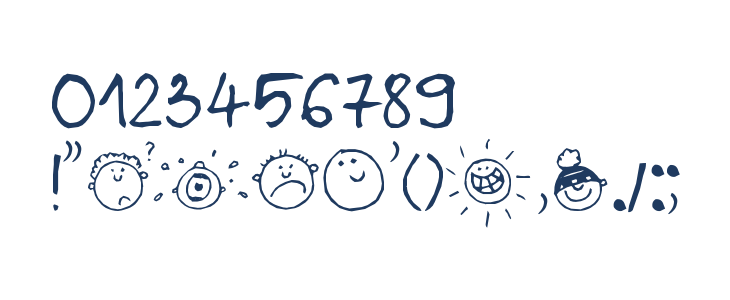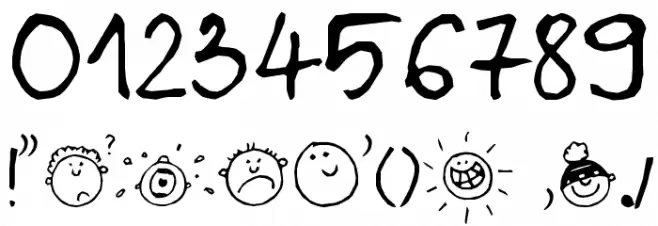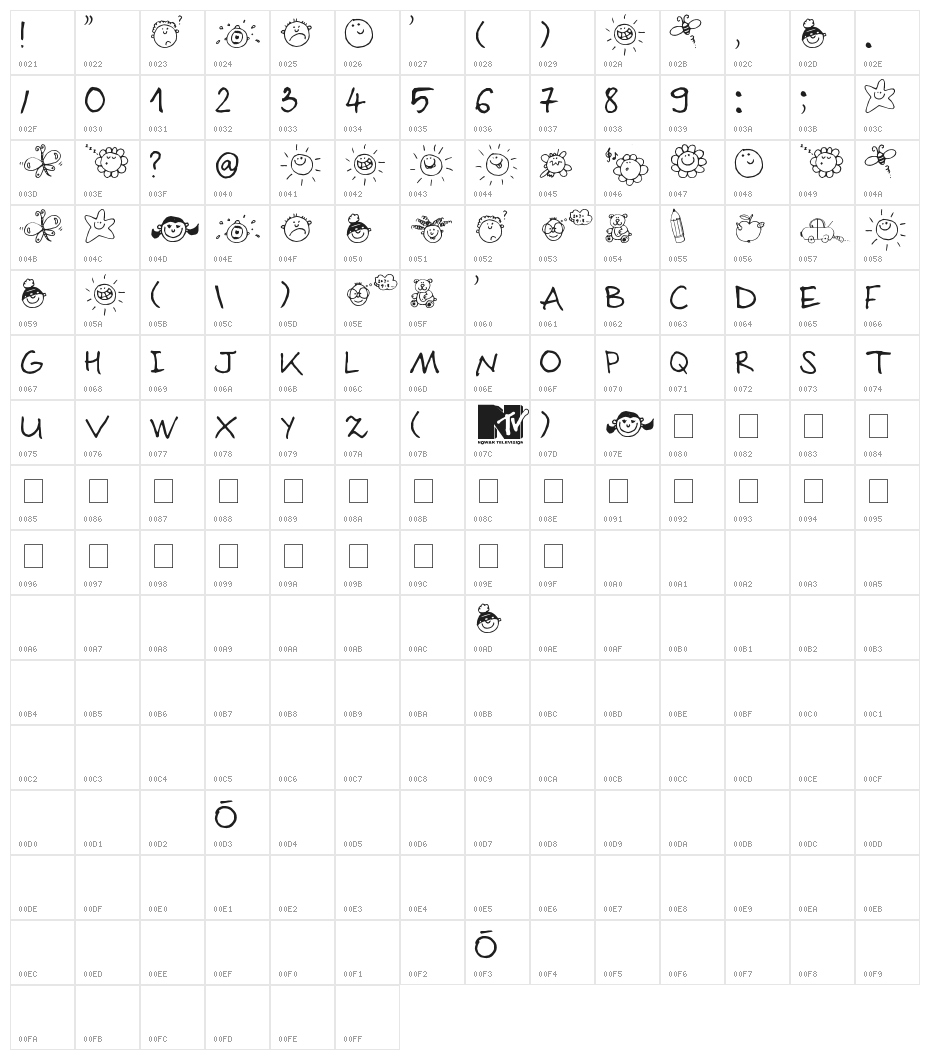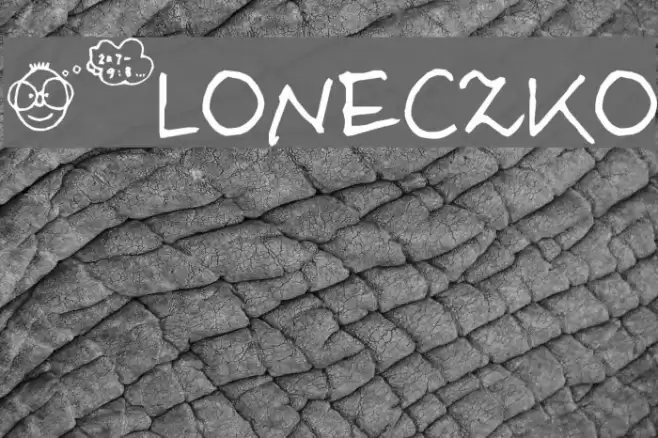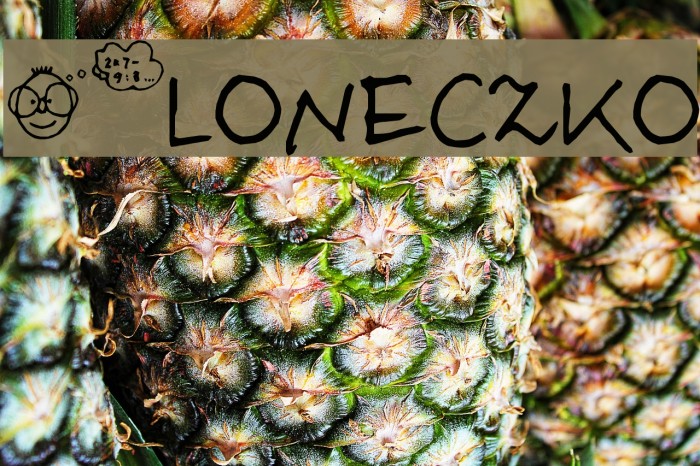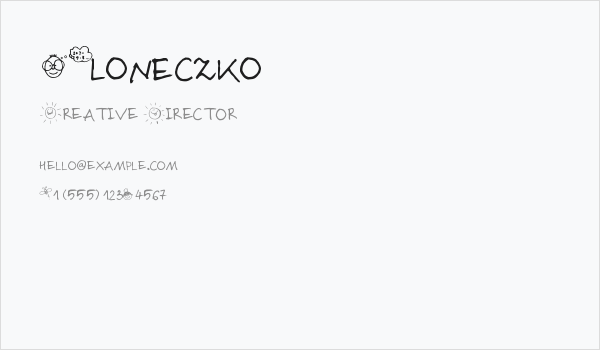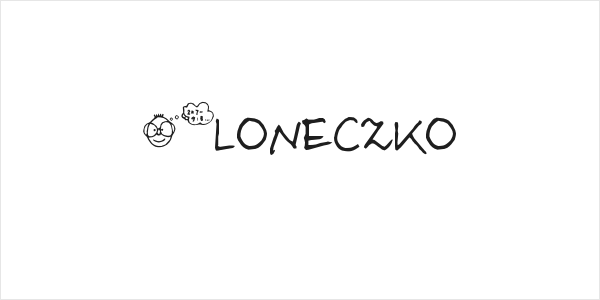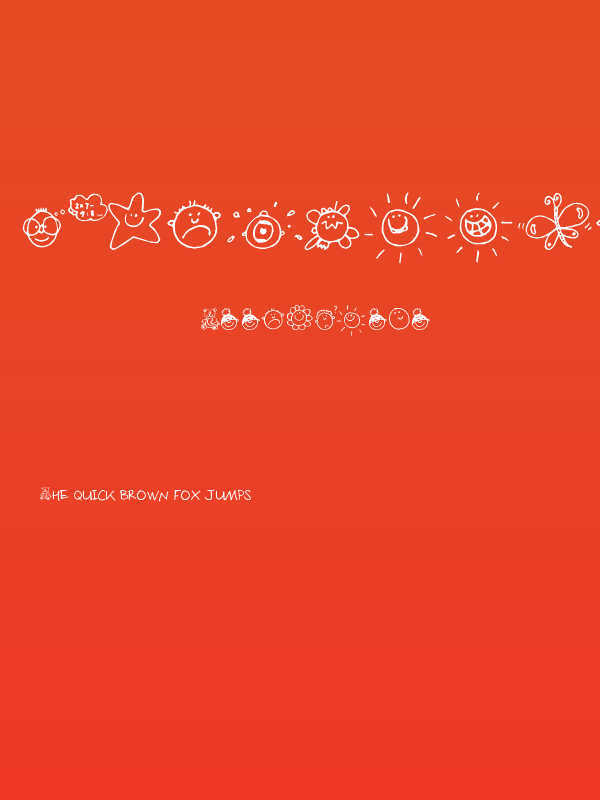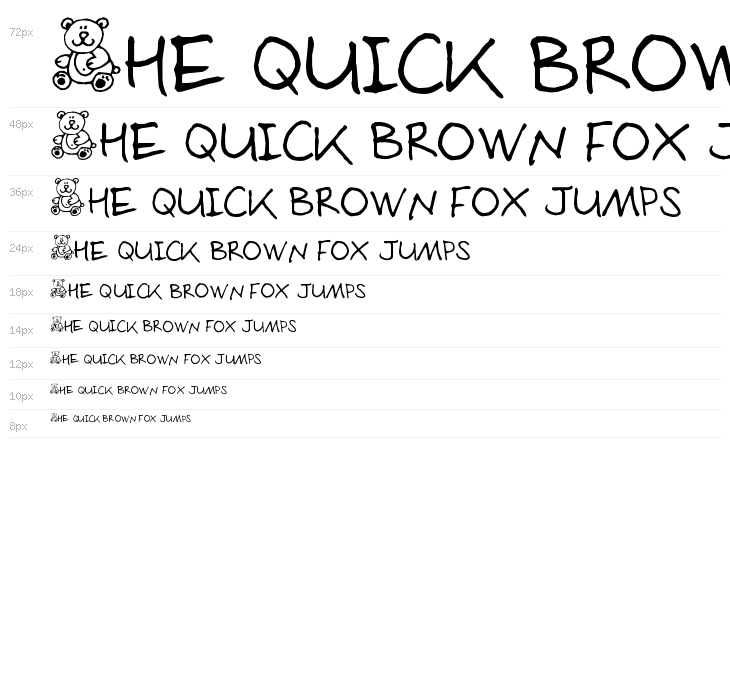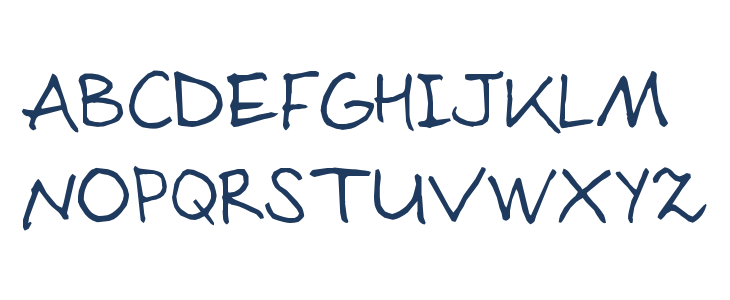
Sloneczko Font
Sloneczko Description
This playful and whimsical font features a handwritten style with a lively and energetic appearance. The characters are bold and slightly irregular, giving them a casual and friendly feel. The uppercase letters are distinct and easy to read, while the numbers maintain the same playful aesthetic. Special characters are included, adding to the font's versatility. The overall design is reminiscent of doodles or sketches, making it ideal for projects that require a fun and informal touch.
| Proposed Projects | Ideal for children's books, greeting cards, playful branding, and informal invitations. |